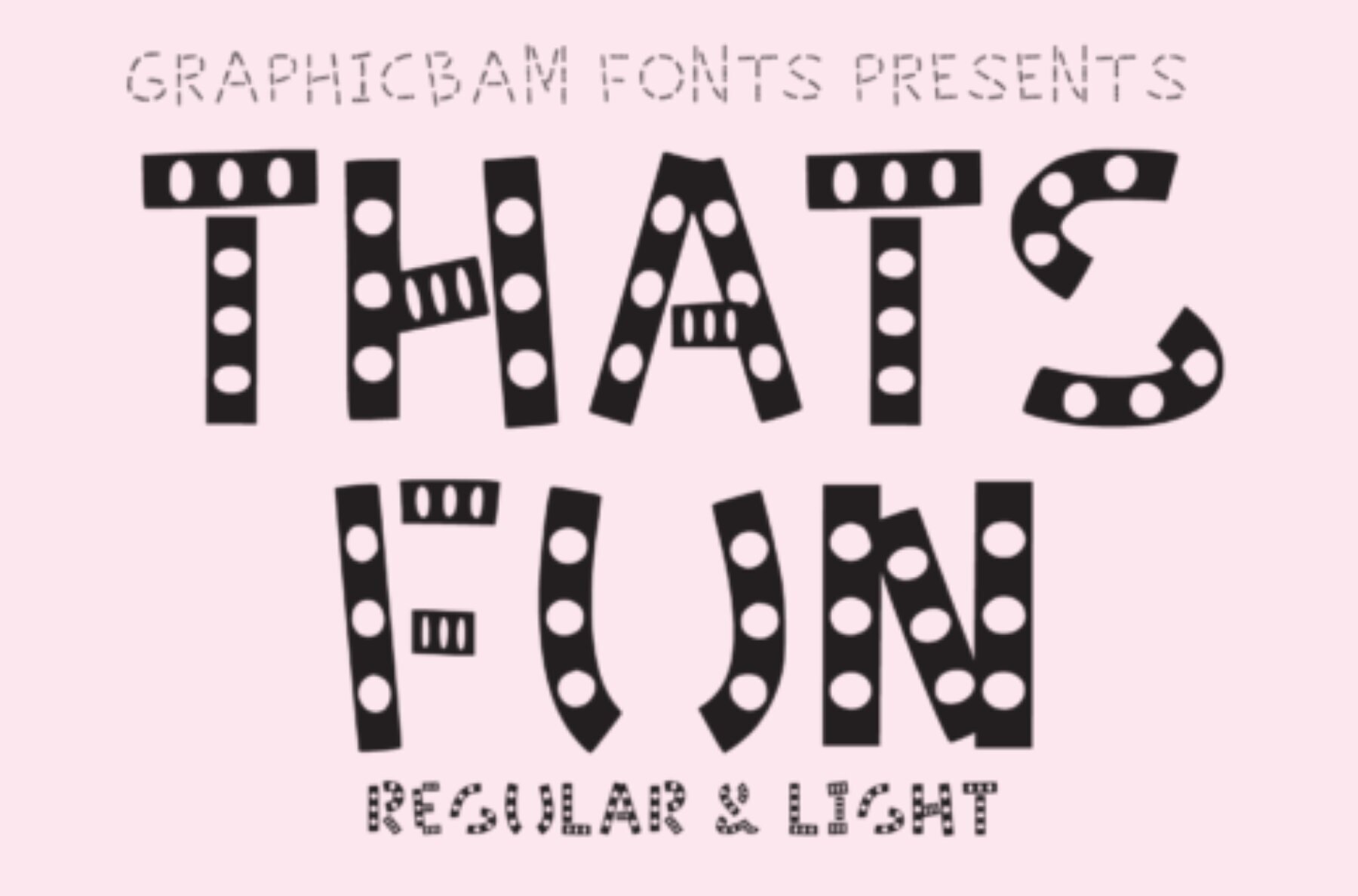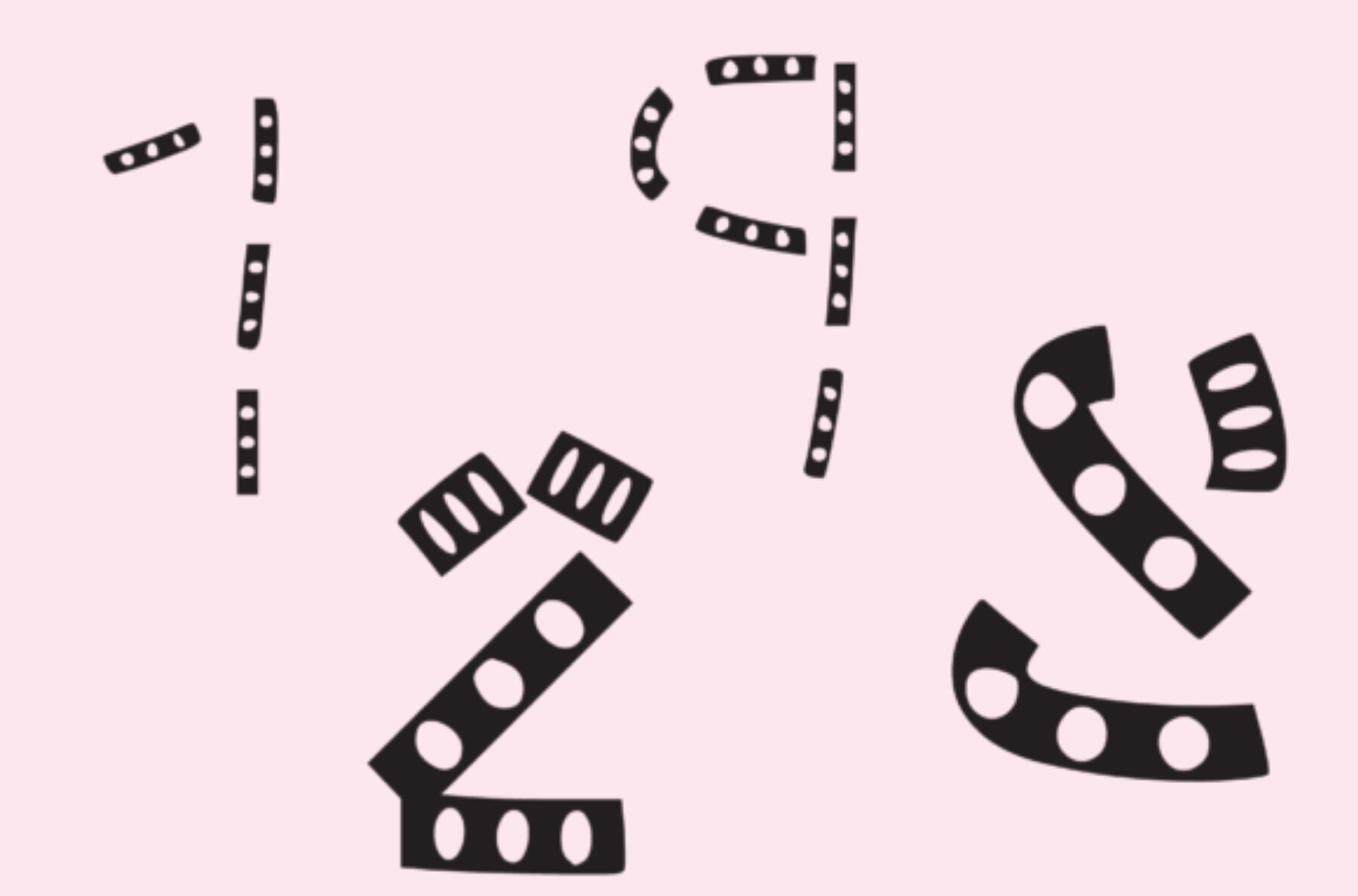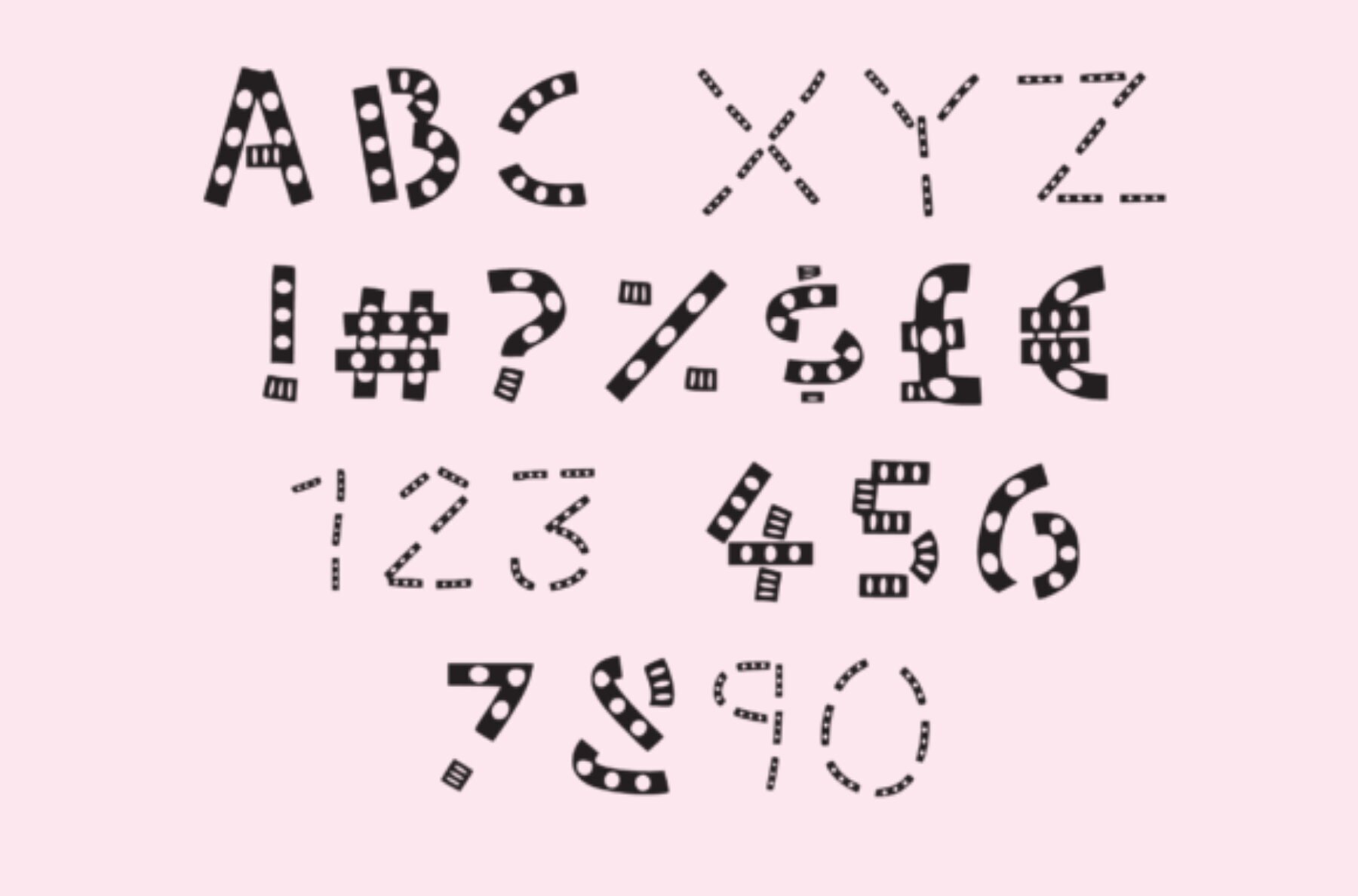
Thats Fun Font
That's Fun captures joy and creativity with its playful design. Crafted from whimsical geometrical shapes, this font breathes life into any project you undertake. Its charming and lively characters make it the perfect addition to your design toolkit.That's Fun - A Playful Geometric Display Font